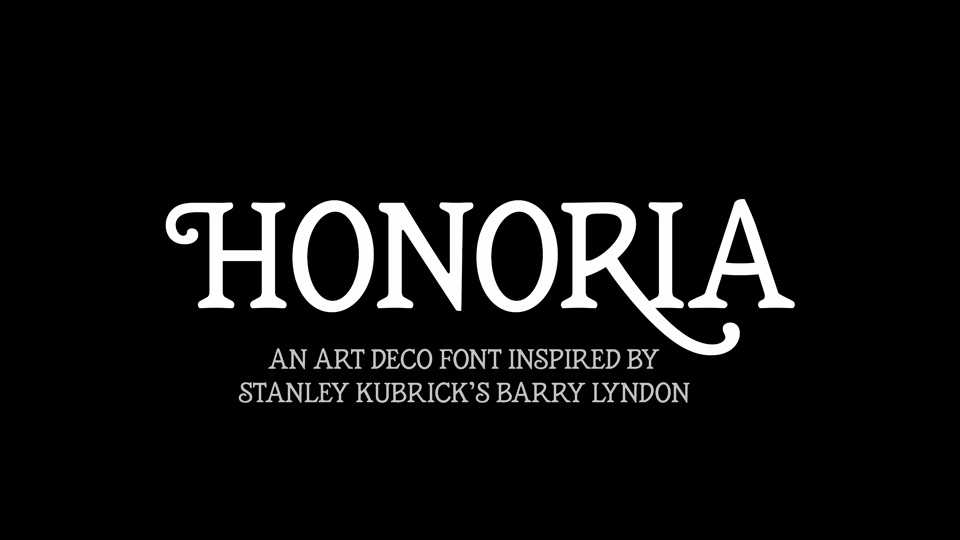
Download Honoria font, an art deco typeface based on the design of the hand-lettered title and text inserts seen in the movie Barry Lyndon (1975).
Designer: Luzius Thöny